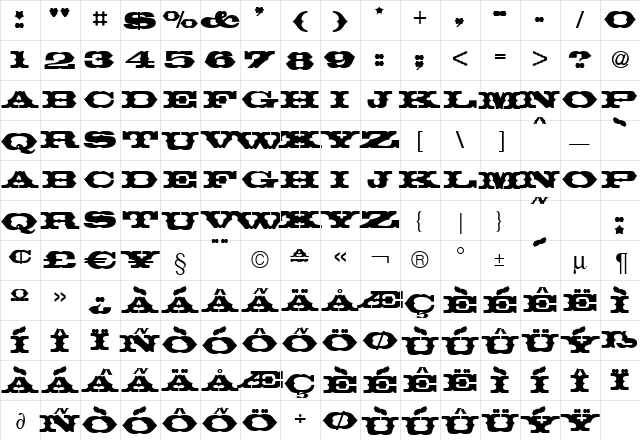
T720-Deco Regular
Design Context for T720-Deco Typeface
T720-Deco is a composed and adaptable typeface that performs quietly and consistently across a wide range of design contexts.